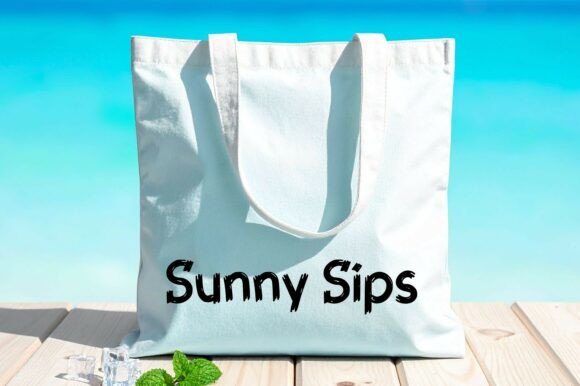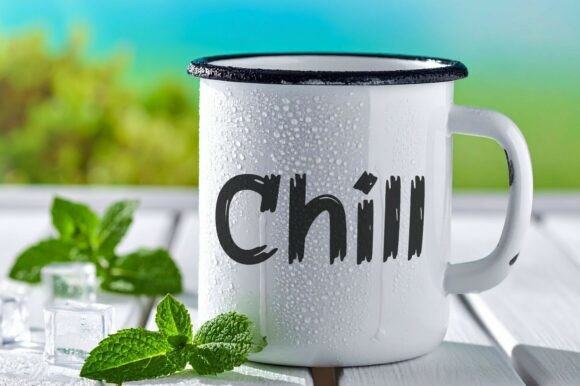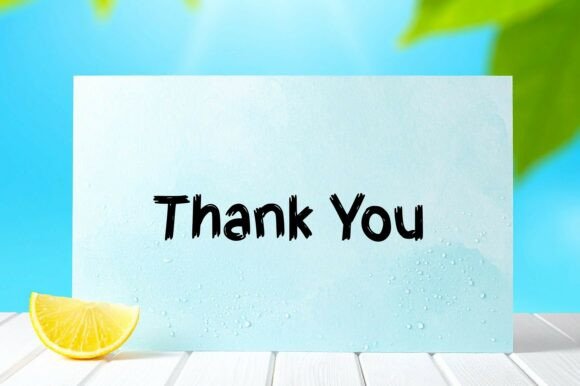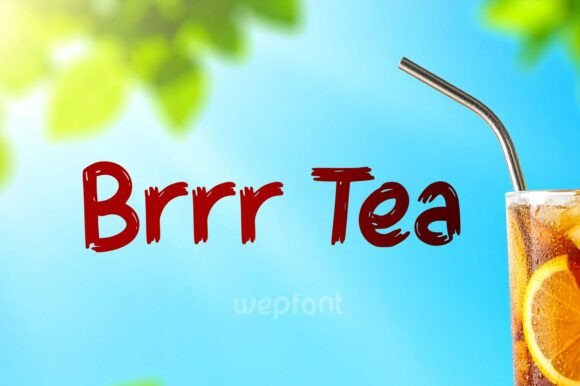
Introducing Brrr Tea Font: The Perfect Blend of Frosty Charm and Playful Originality
Are you tired of using the same old fonts for your designs? Look no further! We’re excited to introduce “Brrr Tea,” a captivating display font that’s sure to add a touch of magic to your creations. This charming font exudes a frosty freshness intertwined with a dash of playful originality, making it perfect for designers and crafters looking to create vibrant and stylish designs.
What Makes Brrr Tea Font So Special?
Brrr Tea is characterized by sharp lines and uniquely individualistic details, which set it apart from other fonts. Despite its frosty vibe, this font manages to be both fresh and affable, making it an excellent choice for creating designs that evoke a warm, easygoing aura. Whether you’re designing for a trendy cafe, a summer beverage brand, or a travel blog, Brrr Tea is the perfect font to help you set a relaxed, laid-back tone.
Endless Applications for Brrr Tea Font
Brrr Tea is an incredibly versatile font that’s suitable for an extensive range of applications. Here are a few ideas to get you started:
- Beverage labels: Add a touch of frosty charm to your iced tea or summer beverage labels.
- Beach party flyers: Create eye-catching flyers for your next beach party or summer event.
- Travel blogs: Use Brrr Tea to add a touch of adventure to your travel blog or vacation-themed merchandise.
Why Brrr Tea Font is Perfect for Your Brand
Brrr Tea impeccably complements brand identities of iced teas, summertime beverages, or trendy cafes, mirroring a sentiment of unwinding and revitalizing. This font is perfect for brands that want to evoke a sense of relaxation and fun. Imagine sipping on a cold iced tea on a hot summer day, with the Brrr Tea font adorning the label. It’s the perfect combination of style and refreshment!
Tips for Using Brrr Tea Font
Here are a few tips for using Brrr Tea to create stunning designs:
- Pair Brrr Tea with bold colors: Bring out the frosty charm of Brrr Tea by pairing it with bold, bright colors.
- Experiment with textures: Add a tactile element to your designs by experimenting with textures and patterns.
- Keep it simple: Don’t be afraid to keep your design simple and clean. Brrr Tea is a statement font that can stand on its own.
In conclusion, Brrr Tea is a captivating display font that’s sure to add a touch of magic to your designs. With its unique blend of frosty charm and playful originality, this font is perfect for designers and crafters looking to create vibrant and stylish designs. Whether you’re designing for a trendy cafe, a summer beverage brand, or a travel blog, Brrr Tea is the perfect choice. So why wait? Download Brrr Tea today and start creating stunning designs that evoke a warm, easygoing aura!